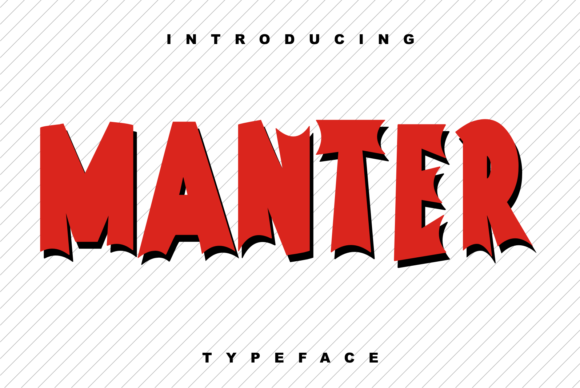
**Introducing Manter Font: The Key to Unlocking Your Creative Potential**
Immerse yourself in a world of captivating designs with Manter Font, the ultimate display font forged for the discerning eye. Its bold strokes and striking presence command attention, effortlessly elevating your creations to new heights of visual allure.
**A Font That Embodies Strength**
With its unwavering structure and unwavering style, Manter Font exudes an aura of confidence and authority. Its thick, well-defined letters convey a sense of stability and power, making it an ideal choice for branding, headlines, and any design that demands impact.
**A Touch of Playfulness**
Despite its bold presence, Manter Font retains a playful charm that adds a touch of whimsy to your designs. Its slightly rounded edges and subtle curves hint at a softer side, inviting you to explore the boundaries of creativity.
**Versatile and Adaptable**
Manter Font transcends the confines of a single aesthetic, seamlessly blending with a wide range of design styles. From sleek and modern to vintage and bohemian, this font chameleon conforms to your vision, adding a touch of sophistication to any project.
**A Creative Force**
With Manter Font at your fingertips, the possibilities are limitless. Unleash your imagination and craft designs that resonate with your audience. Whether you're creating eye-catching posters, captivating social media graphics, or simply adding a touch of flair to your personal documents, Manter Font empowers you to make a lasting impression.